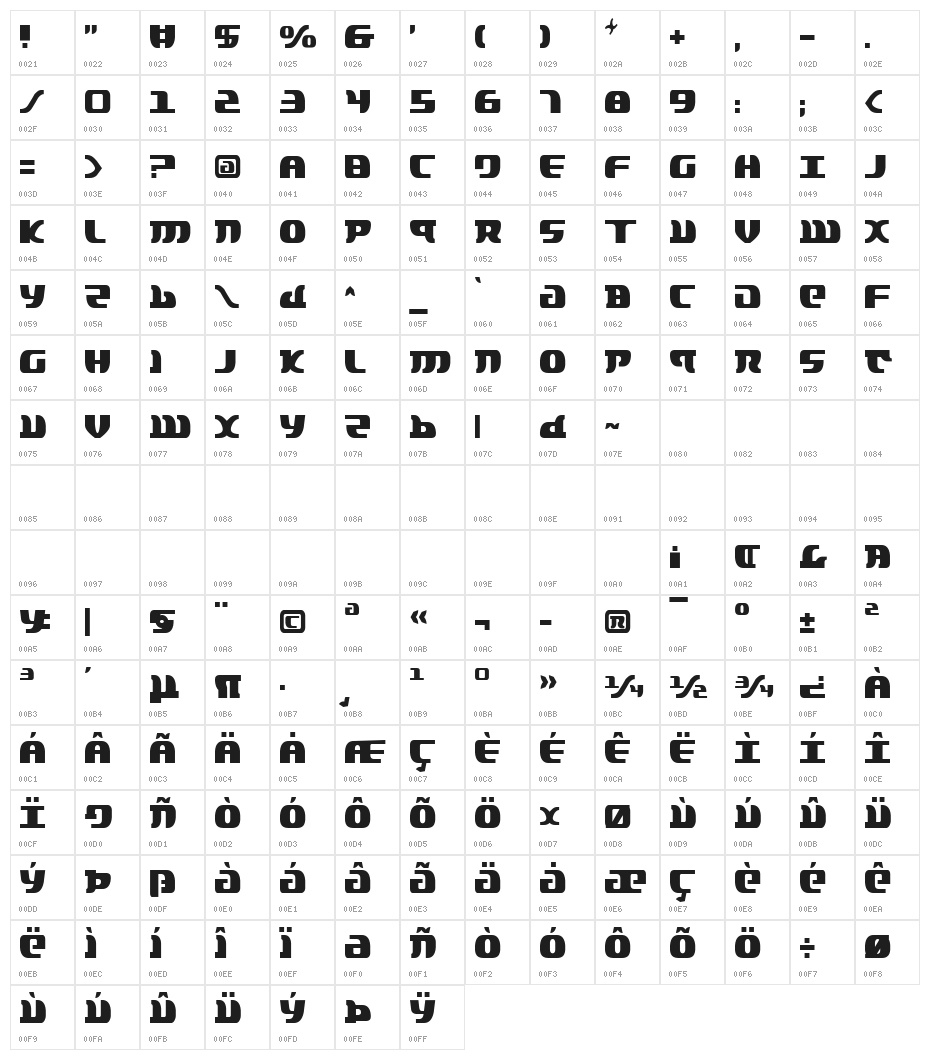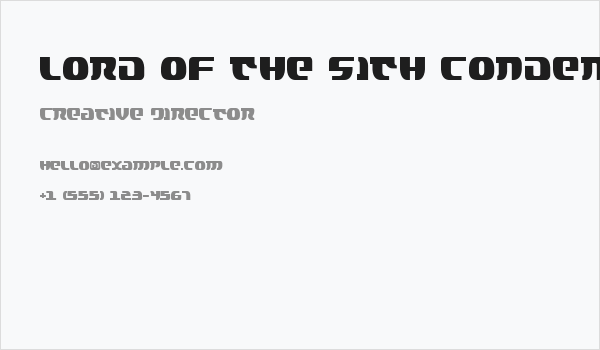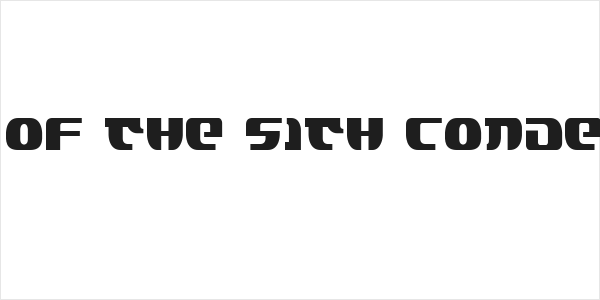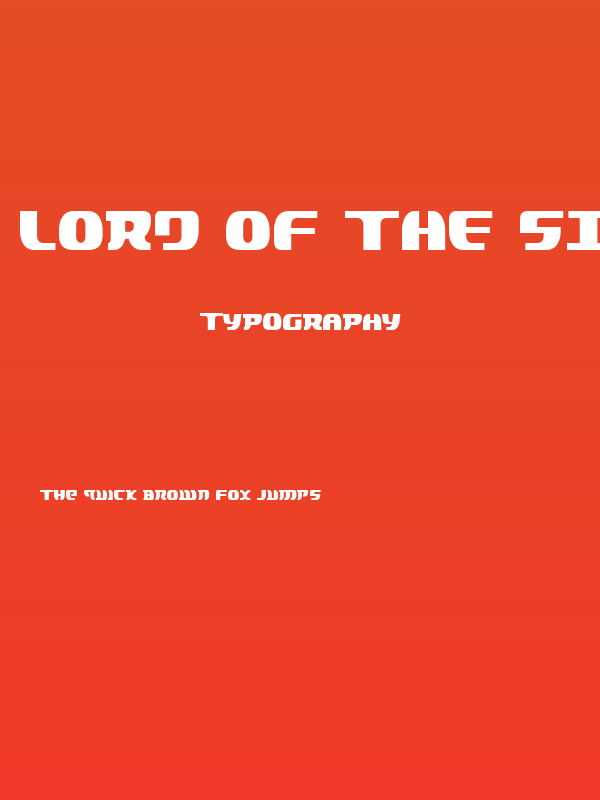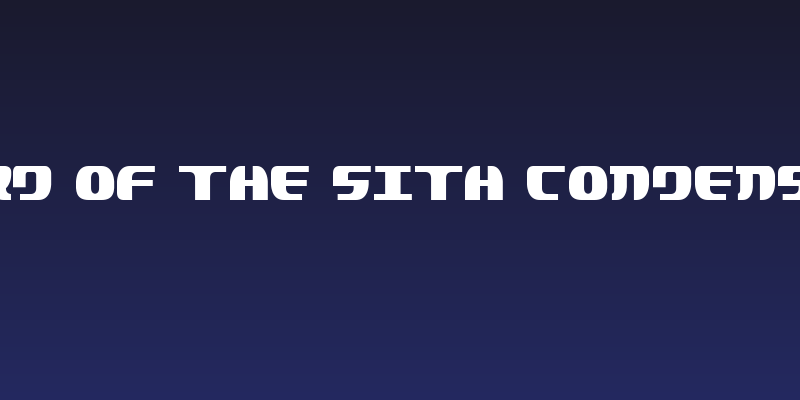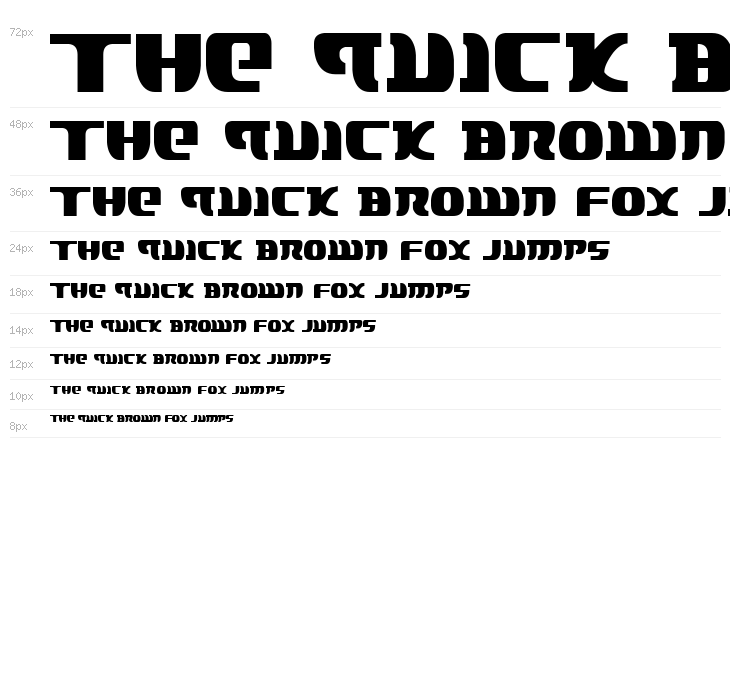
Lord of the Sith Condensed Font
Lord of the Sith Condensed Description
This font features a bold and futuristic design, characterized by its strong geometric shapes and condensed structure. The uppercase and lowercase letters share a consistent style, with sharp angles and a blocky appearance that conveys a sense of power and modernity. The numerals and special characters maintain this cohesive look, ensuring versatility across various applications. The font's condensed width allows for efficient use of space, making it suitable for impactful headlines and titles. Its unique style is reminiscent of sci-fi themes, adding a dramatic flair to any project.
| Overall Style | Futuristic, Modern |
| Proposed Projects | Ideal for sci-fi themed projects, movie posters, video game titles, and branding that requires a modern, powerful aesthetic. |